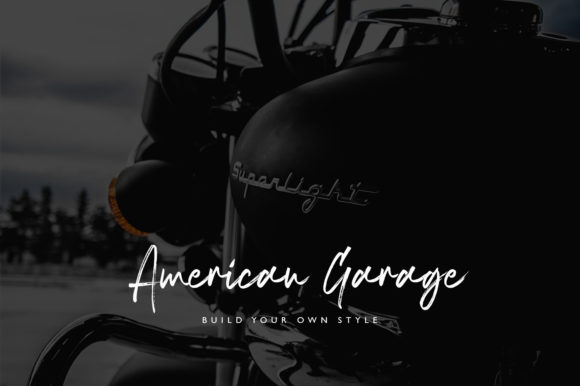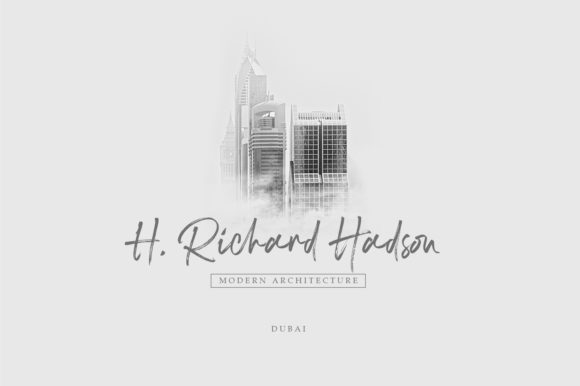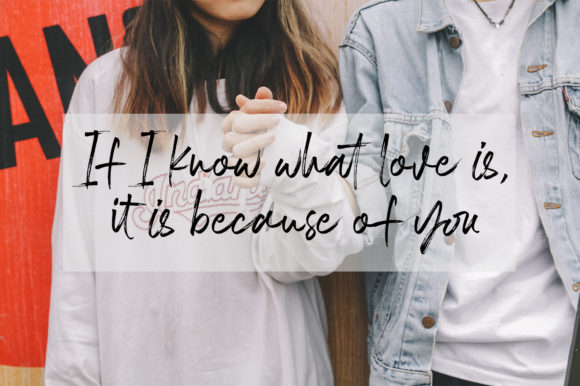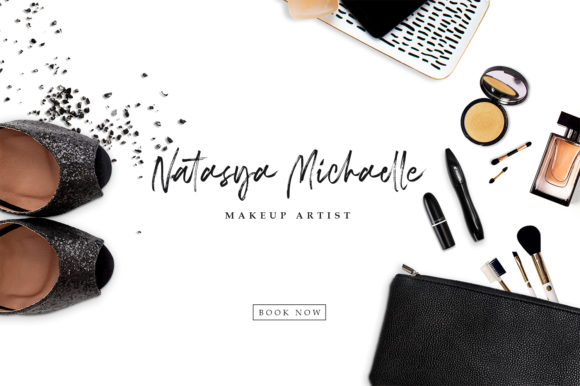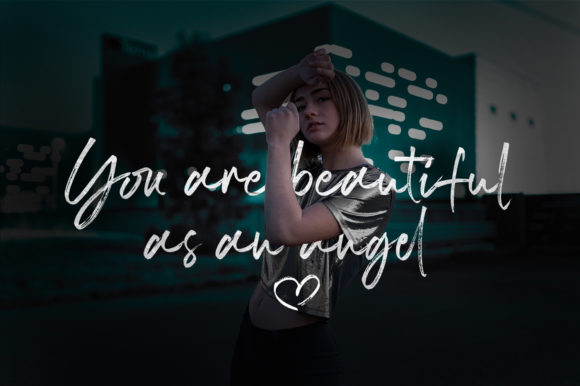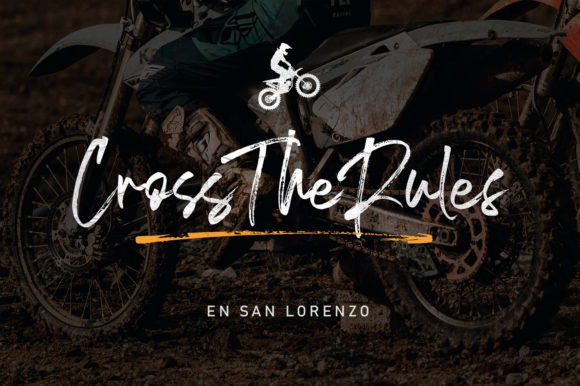
Discover the Power of Black Ocean Font: A Modern Script Font with a Cool Vibe
In the world of typography, fonts play a crucial role in conveying messages, expressing emotions, and creating a lasting impression. For designers, crafters, and creative enthusiasts, finding the right font can be a daunting task. However, if you’re looking for a strong and extraordinarily unique script font with a cool vibe, look no further than the Black Ocean Font. In this article, we’ll dive into the world of Black Ocean Font, exploring its features, benefits, and uses, and why it’s a must-have for any design project.
What is Black Ocean Font?
Black Ocean Font is a modern script font that exudes a sense of sophistication and elegance. Its unique design combines smooth lines, flowing curves, and a hint of edginess, making it perfect for a wide range of design applications. Whether you’re working on a logo, branding project, or social media graphics, Black Ocean Font is sure to make a statement.
Key Features of Black Ocean Font
- Unique and Modern Design: Black Ocean Font boasts a distinctive and contemporary design that sets it apart from other script fonts.
- Strong and Bold: With its sturdy lines and curves, Black Ocean Font conveys confidence and authority, making it perfect for headlines and titles.
- Cool and Edgy Vibe: The font’s subtle edginess gives it a cool and trendy feel, making it ideal for designs that require a bit of attitude.
- Highly Versatile: Black Ocean Font can be used for a wide range of design projects, from logos and branding to social media graphics and posters.
Benefits of Using Black Ocean Font
So, why choose Black Ocean Font for your design project? Here are just a few benefits of using this amazing font:
- Stand Out from the Crowd: With its unique design, Black Ocean Font is sure to grab attention and set your design apart from the competition.
- Convey Confidence and Authority: The font’s strong and bold design conveys confidence and authority, making it perfect for businesses and brands that want to make a statement.
- Add a Touch of Edginess: Black Ocean Font’s cool and edgy vibe adds a touch of sophistication and modernity to any design.
Who Can Benefit from Black Ocean Font?
Black Ocean Font is perfect for a wide range of designers, crafters, and creative enthusiasts, including:
- Graphic Designers: Whether you’re working on a logo, branding project, or social media graphics, Black Ocean Font is a great addition to your design toolkit.
- Crafters and DIY Enthusiasts: If you’re creating handmade products or DIY projects, Black Ocean Font can add a touch of personality and style to your designs.
- Marketing and Advertising Professionals: With its bold and attention-grabbing design, Black Ocean Font is perfect for marketing and advertising campaigns that require a strong visual impact.
How to Use Black Ocean Font
Using Black Ocean Font is easy! Here are a few tips to get you started:
- Pair it with Other Fonts: Experiment with pairing Black Ocean Font with other fonts to create a unique and visually appealing design.
- Use it for Headlines and Titles: Black Ocean Font is perfect for headlines and titles, where its bold and attention-grabbing design can shine.
- Experiment with Colors and Textures: Don’t be afraid to experiment with different colors and textures to add depth and interest to your design.
| Author | fargunstudio |
In conclusion, Black Ocean Font is a powerful and versatile script font that offers a unique and modern design with a cool vibe. With its strong and bold lines, flowing curves, and edgy charm, it’s perfect for a wide range of design applications. Whether you’re a graphic designer, crafter, or marketing professional, Black Ocean Font is a must-have for any design project. So why wait? Get inspired by its modern vibe and discover the power of Black Ocean Font today!